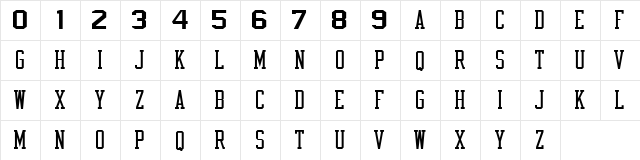
NBA Hornets Regular
Design Context for NBA Hornets Typeface
NBA Hornets is a composed and adaptable typeface that performs quietly and consistently across a wide range of design contexts.
Pro Tip: Use NBA Hornets in both headline and body roles to test its range before committing to a single application.